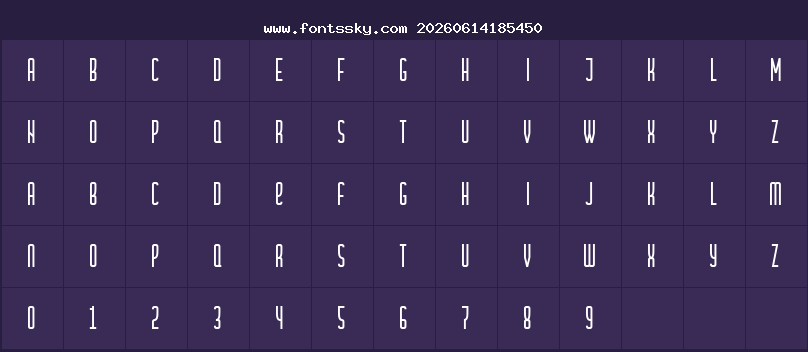
Cramaten Preview
• Font Name: Cramaten
• Designer: Denis Ignatov
About Cramaten.ttf
Cramaten.ttf is a modern, elegant sans-serif font designed for ultimate readability and visual harmony. Perfect for branding, headlines, web design, and print materials.